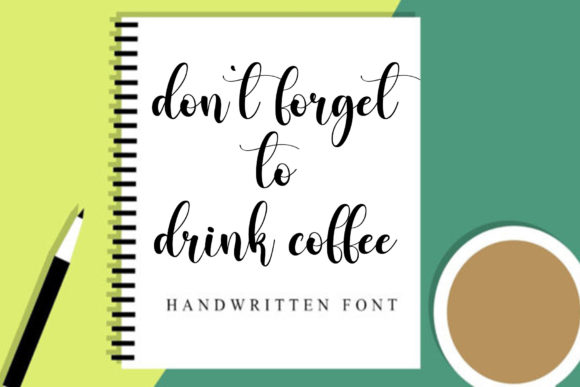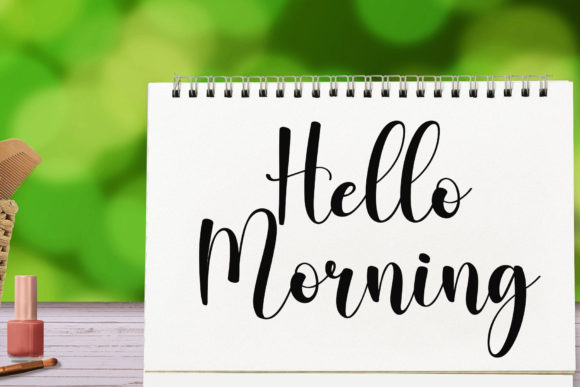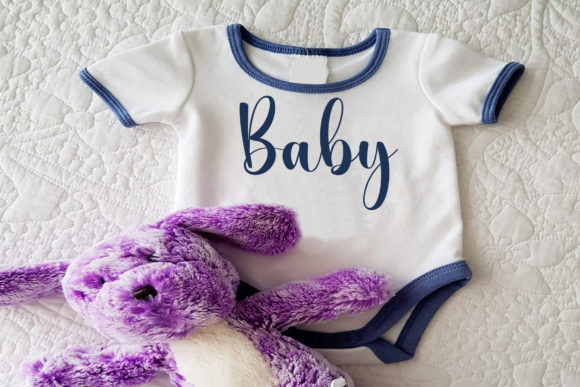
About Writing Signature Font
Writing Signature is a refined and elegant handwritten font that seamlessly blends the timeless charm of calligraphy with a modern touch. The font’s exquisite design is the result of meticulous craftsmanship, making it a standout choice for a wide range of creative endeavors.
The font’s most notable feature is its ability to balance the classic elements of calligraphy with a contemporary twist. The strokes are graceful and refined, reflecting the artistry of traditional handwritten scripts while maintaining a sense of freshness that suits modern design aesthetics.
Writing Signature font adds an air of sophistication and class to any project it graces. Its fluid and graceful lines capture the essence of a handcrafted signature, creating a personalized and premium feel. This makes it an excellent choice for branding and logo design, as it can impart a sense of exclusivity and authenticity to a brand’s visual identity.
In addition to branding, Writing Signature font shines in various design contexts. It’s particularly well-suited for elegant invitations, wedding stationery, and event announcements. Its delicate curves and elegant appearance enhance the overall aesthetic of these materials, setting the tone for special occasions.
When applied to digital media, such as social media graphics or website headers, Writing Signature font maintains its refined appeal. Its clean lines and balanced form ensure legibility while adding a touch of sophistication to your digital presence.
Furthermore, Writing Signature font’s versatility extends to printed materials such as packaging, business cards, and product labels. Its elegant script can elevate the visual appeal of these items, creating a lasting impression and reinforcing brand image.
Writing Signature font is a go-to choice for adding a touch of luxury to typographical elements, whether it’s headlines, titles, quotes, or captions. Its timeless yet contemporary design allows it to adapt seamlessly to various design styles and themes.
In summary, Writing Signature is a font that encapsulates the beauty of calligraphy and the freshness of modern design. Its exquisite strokes and graceful curves make it a captivating choice for branding, invitations, digital media, and print materials. By incorporating Writing Signature font into your projects, you can elevate your design to new levels of elegance and sophistication.